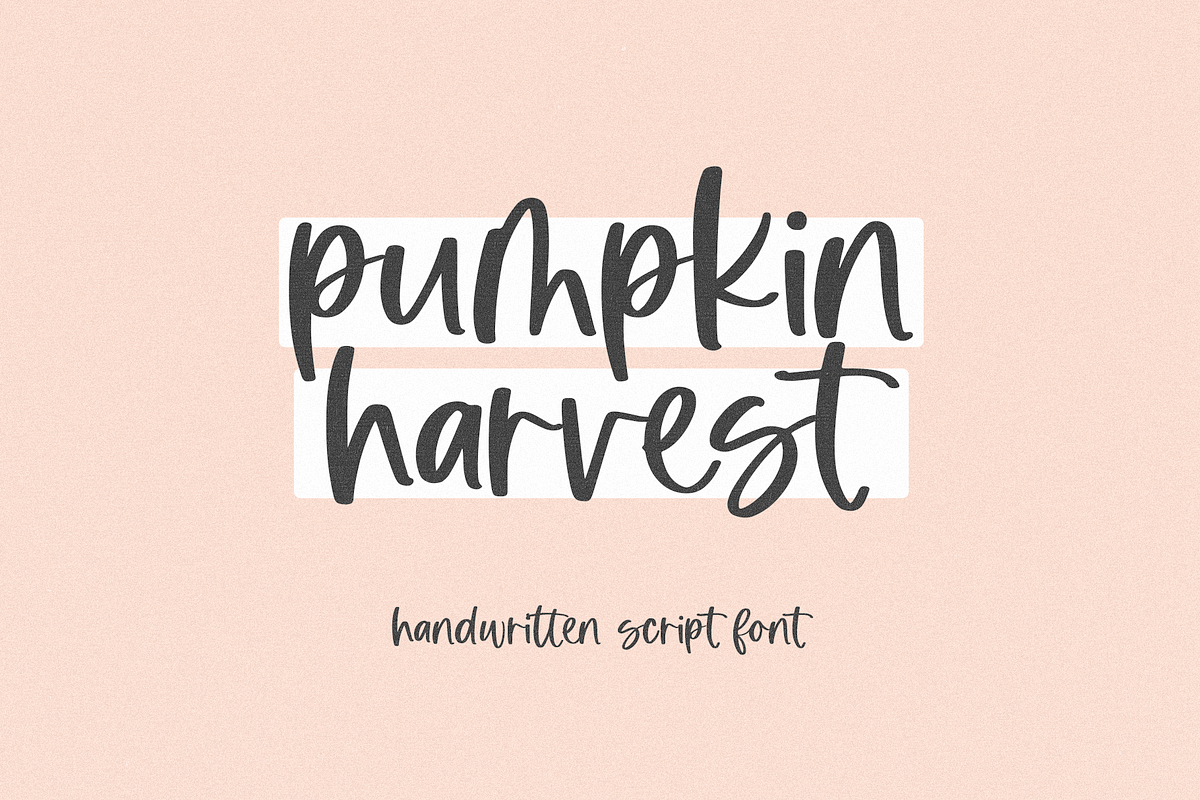
Pumpkin Harvest | Modern Script Font Free Download
Pumpkin Harvest | Modern Script Font Free Download is a beautifully crafted, stylish script font that combines a modern, clean design with a flowing handwritten touch. With its elegant, swirly strokes and sophisticated curves, this font is perfect for branding, invitations, product packaging, social media graphics, and autumn-themed designs, especially for Halloween and fall-related projects.
The font’s smooth, flowing letters add a warm and inviting vibe, making it ideal for creating seasonal, festive, or personal designs that need a touch of elegance and creativity.